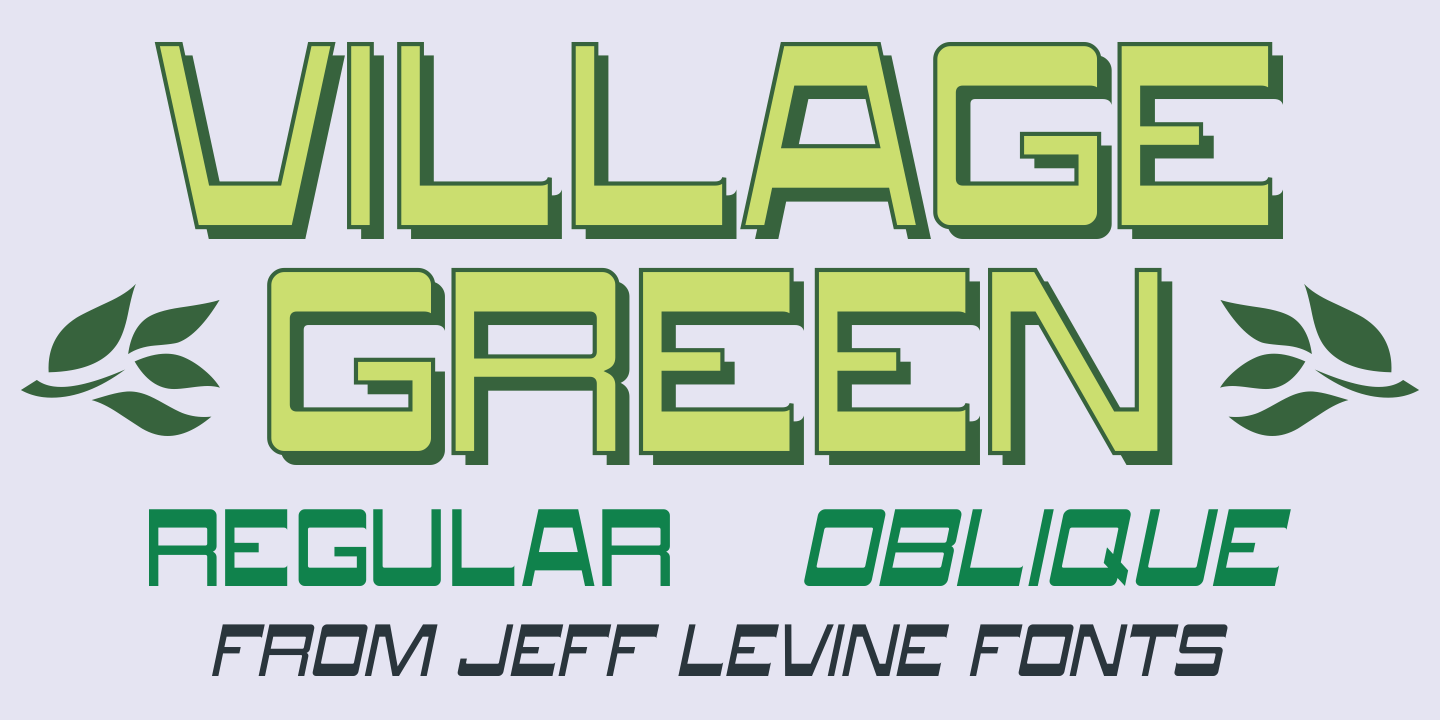
This charming font is perfect for small town branding, local farmers market signage, community event promotions, rural tourism materials, country store logos, hometown festival graphics, pastoral lifestyle brands, and authentic americana design projects. Its wholesome character makes it ideal for projects requiring small-town charm and community spirit.
Village Green JNL Font is exciting because it captures the heartwarming essence of close-knit communities with letterforms that evoke the comfort and familiarity of hometown gatherings on the village green. The font features friendly proportions, approachable styling, and nostalgic details that reflect the genuine warmth and authentic connections found in small-town America. Its community-centered personality instantly communicates trust, tradition, and the timeless values of neighborly cooperation.
The Village Green JNL Font family typically includes regular and decorative variations, along with pastoral ornaments, community symbols, and small-town themed decorative elements. Many versions feature alternate characters with friendly variations and special glyphs that enhance the authentic hometown atmosphere.
Whether you're developing local business brands, community organization materials, or rural heritage campaigns, Village Green JNL Font Free Download provides genuine small-town authenticity with professional reliability. This typeface transforms standard communications into welcoming invitations that resonate with audiences who appreciate community values, local traditions, and the enduring appeal of hometown connections. Its distinctive character adds immediate local credibility while celebrating the heartwarming spirit of Village Green JNL Font Free Download and the precious bonds that make small communities the backbone of American culture.